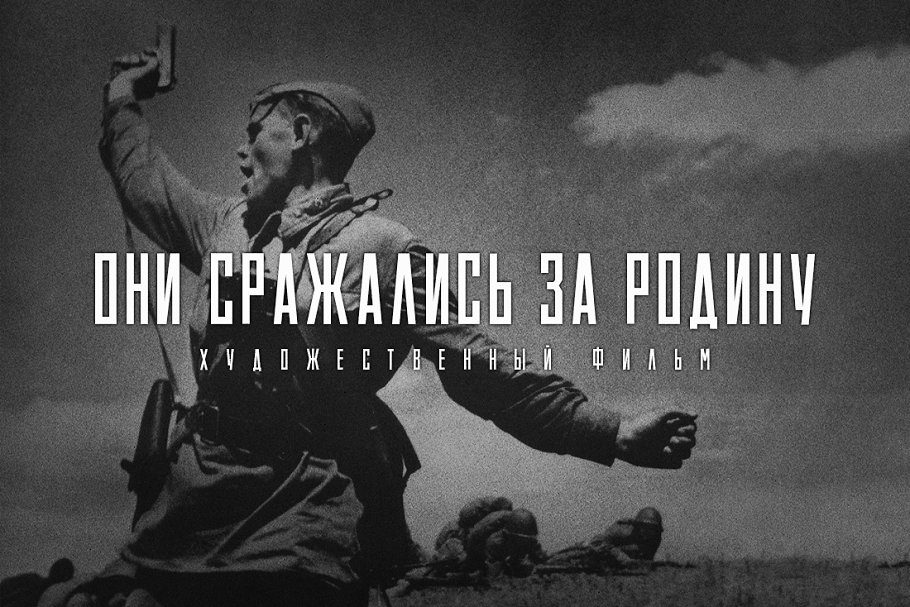
Introducing AGITACIYA Soviet propaganda font, the perfect choice for movie posters and other creative works. Created by Alexander Shimanov, this retro narrow grotesque font family comes in 2 styles: uppercase and small caps alternatives. The letterforms are straight and condensed, inspired by Soviet posters, movie titles, and book covers from the Soviet Era.
Not only does AGITACIYA look great, but it is also highly functional. It supports 40+ languages, including Extended LATIN and Extended CYRILLIC letters. This means that you can use it for a wide range of typography works, including titles, poster design, web design, branding, packaging, illustrations, badges, and much more.
But AGITACIYA is more than just a font. It is a journey back in time to the Soviet Era, evoking feelings of patriotism, pride, and strength. Its bold, eye-catching design is perfect for movie posters and other projects that demand attention.
In short, AGITACIYA is the best font for movie posters and other creative works. With its retro, Soviet-inspired design and functional, versatile features, you won't find a better option on the market.